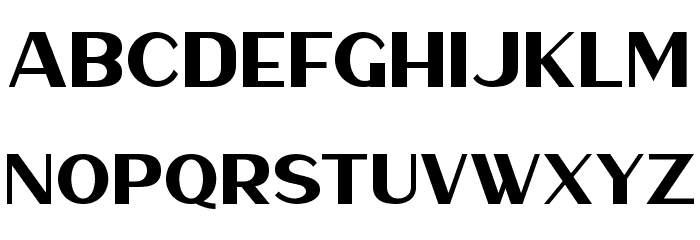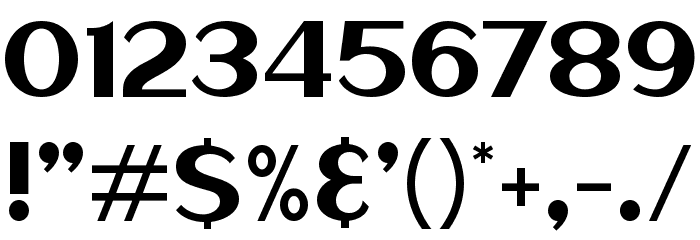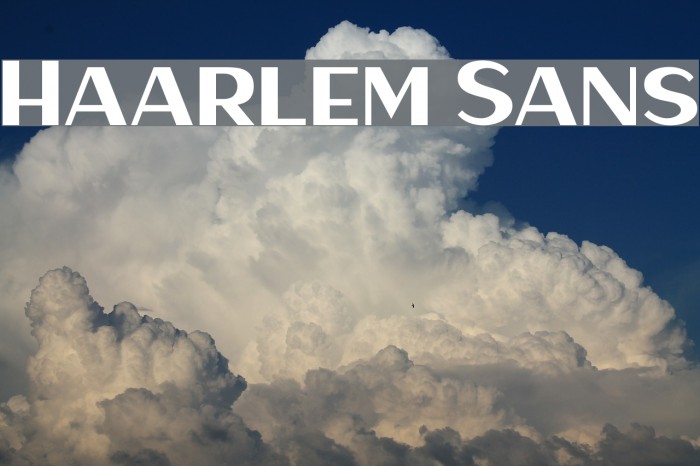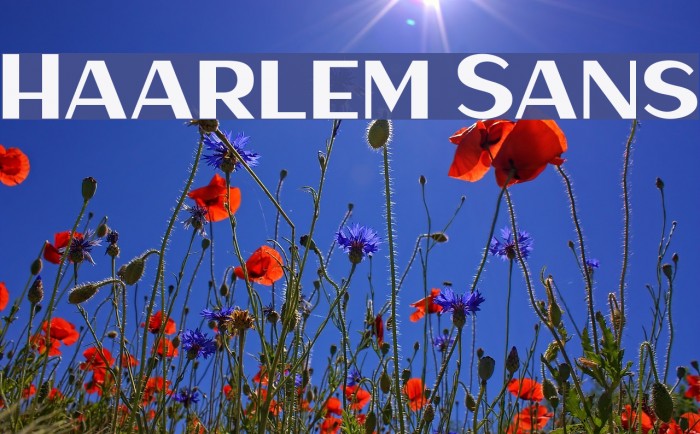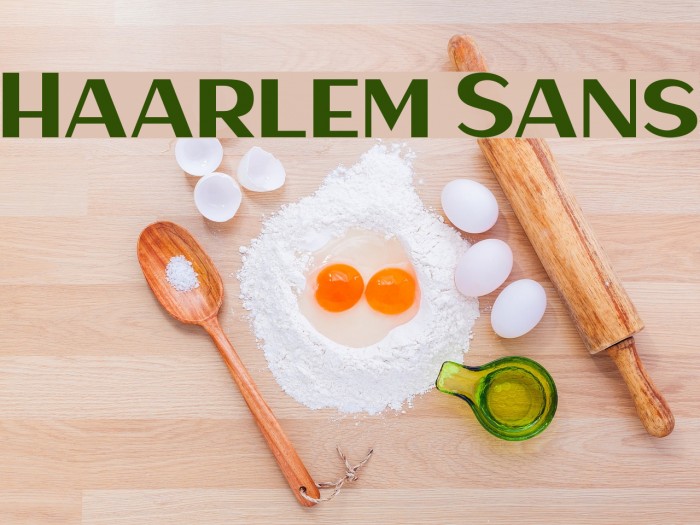
Haarlem Sans Font
This font features a bold and modern sans-serif style with clean, geometric lines. The uppercase letters are uniform in height, providing a strong and cohesive appearance. The lowercase letters maintain a similar geometric structure, ensuring readability and consistency. The numerals are clear and distinct, matching the overall boldness of the font. Special characters are well-defined, adding versatility for various uses. The font's design is suitable for creating impactful and attention-grabbing text, making it ideal for headlines and branding.
A bold, modern sans-serif font with geometric lines and strong visual impact.
- Proposed Projects: Ideal for branding, advertising, headlines, and any project requiring a modern and bold typeface.
- Use Case: Headlines, Logos, Branding